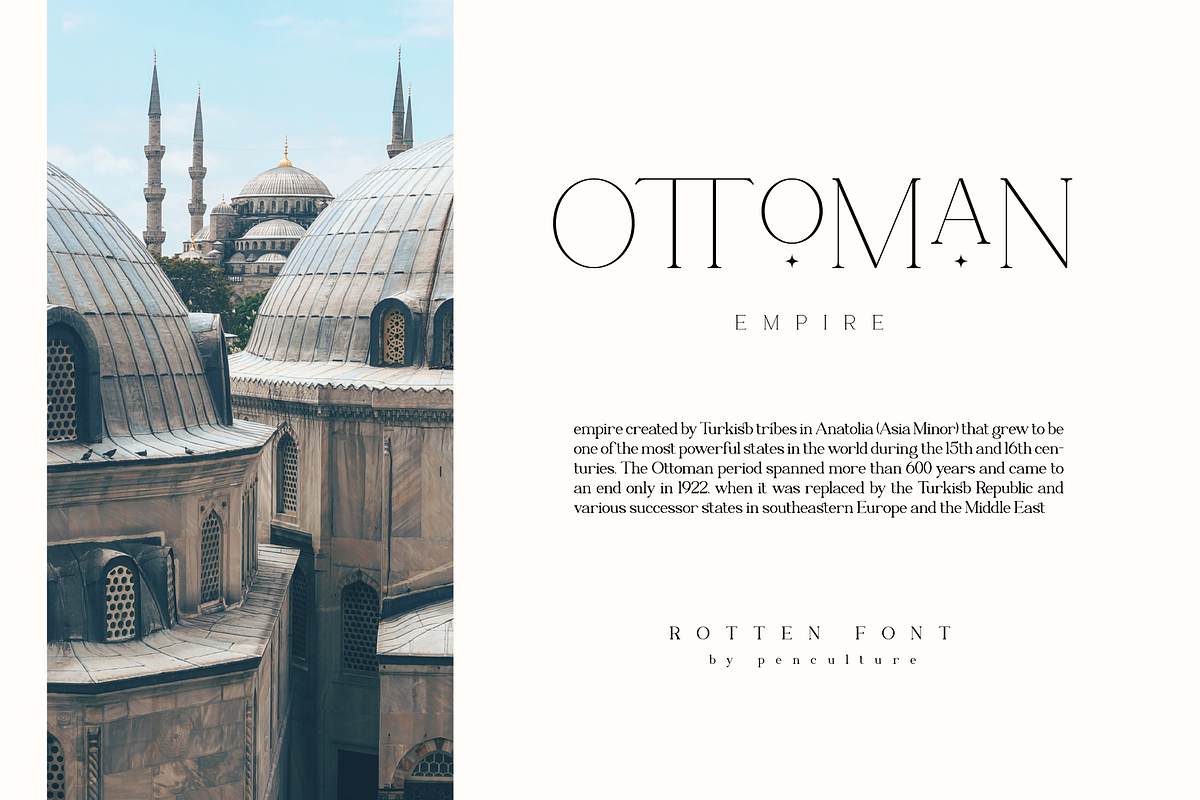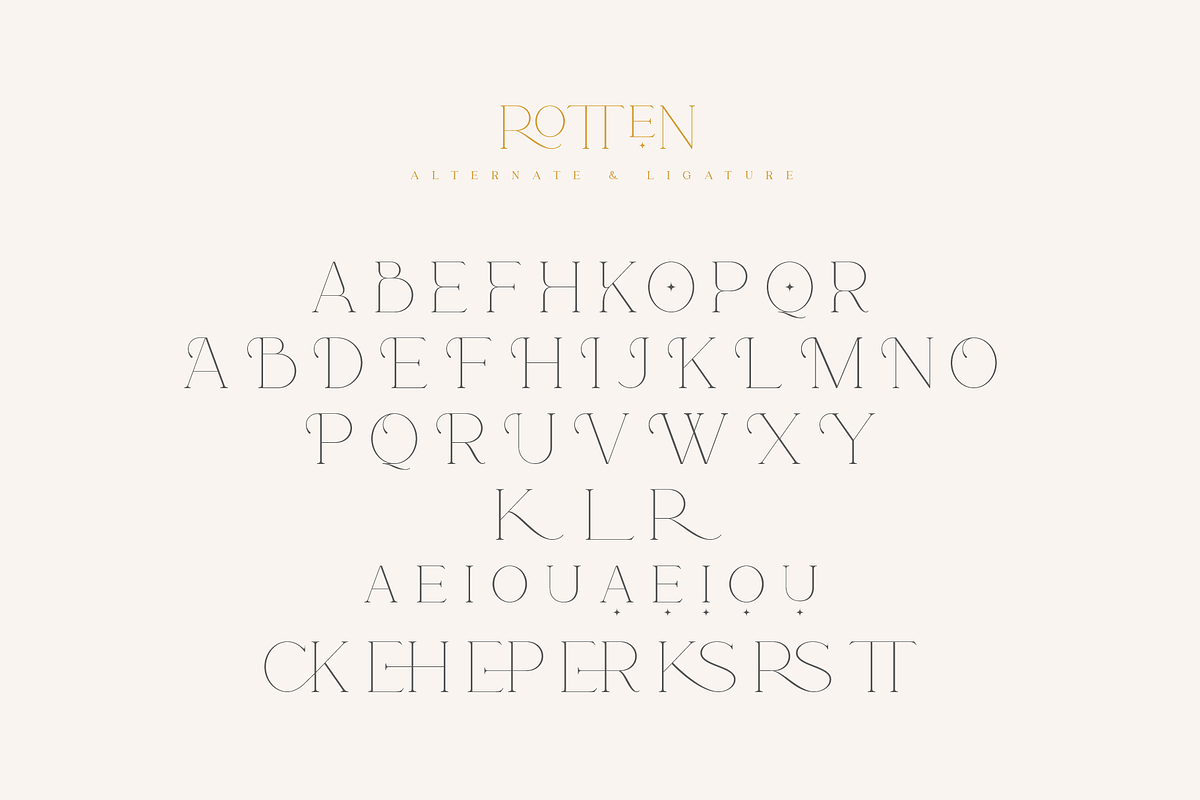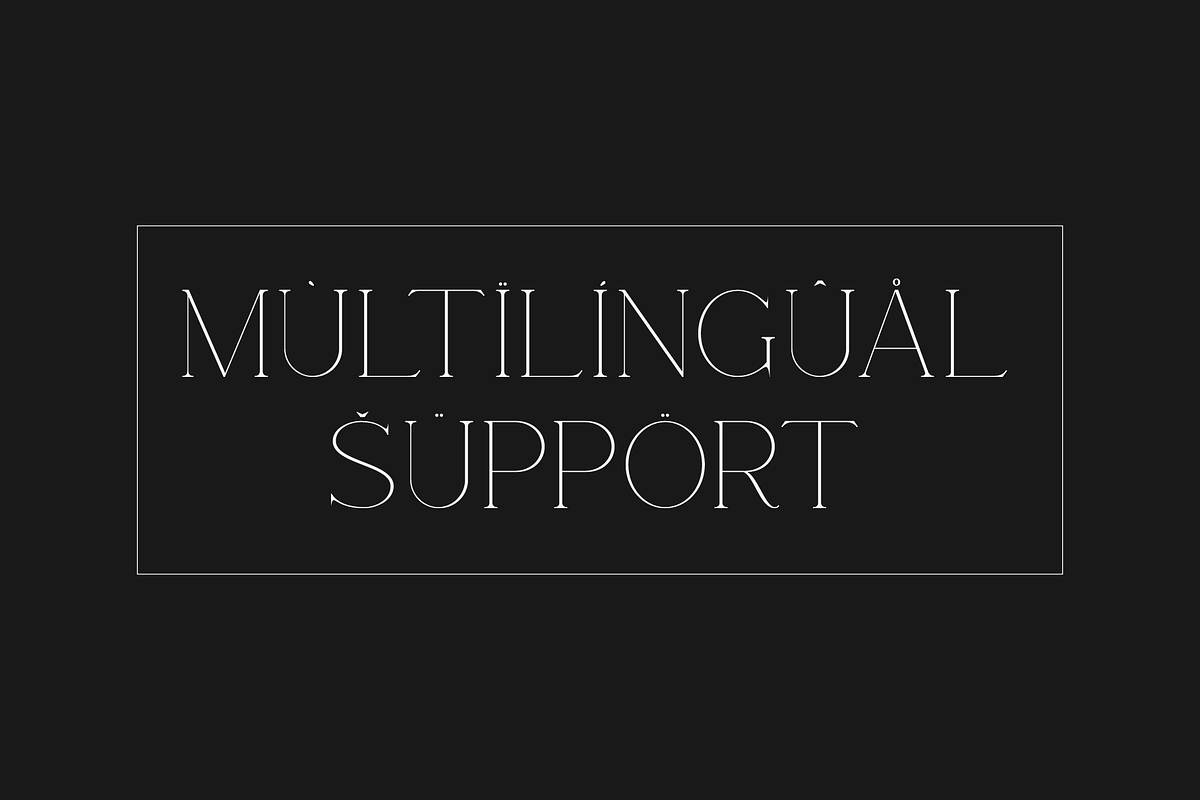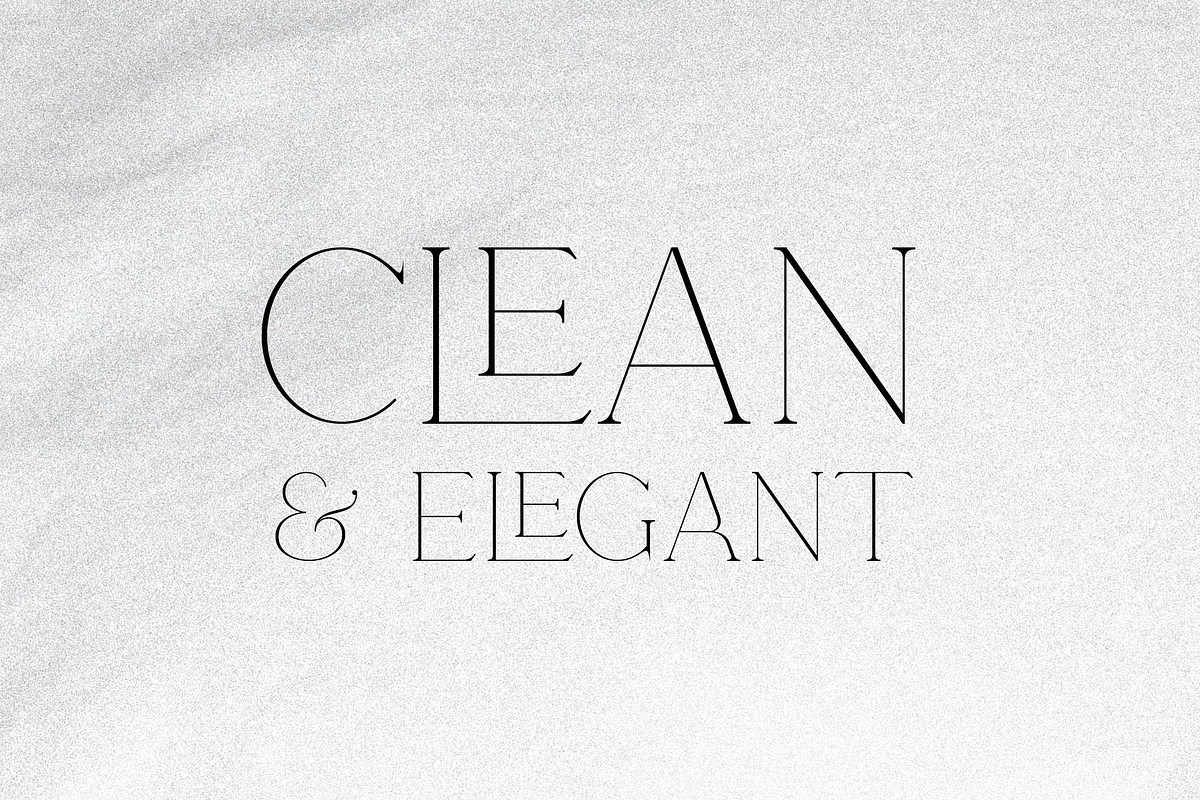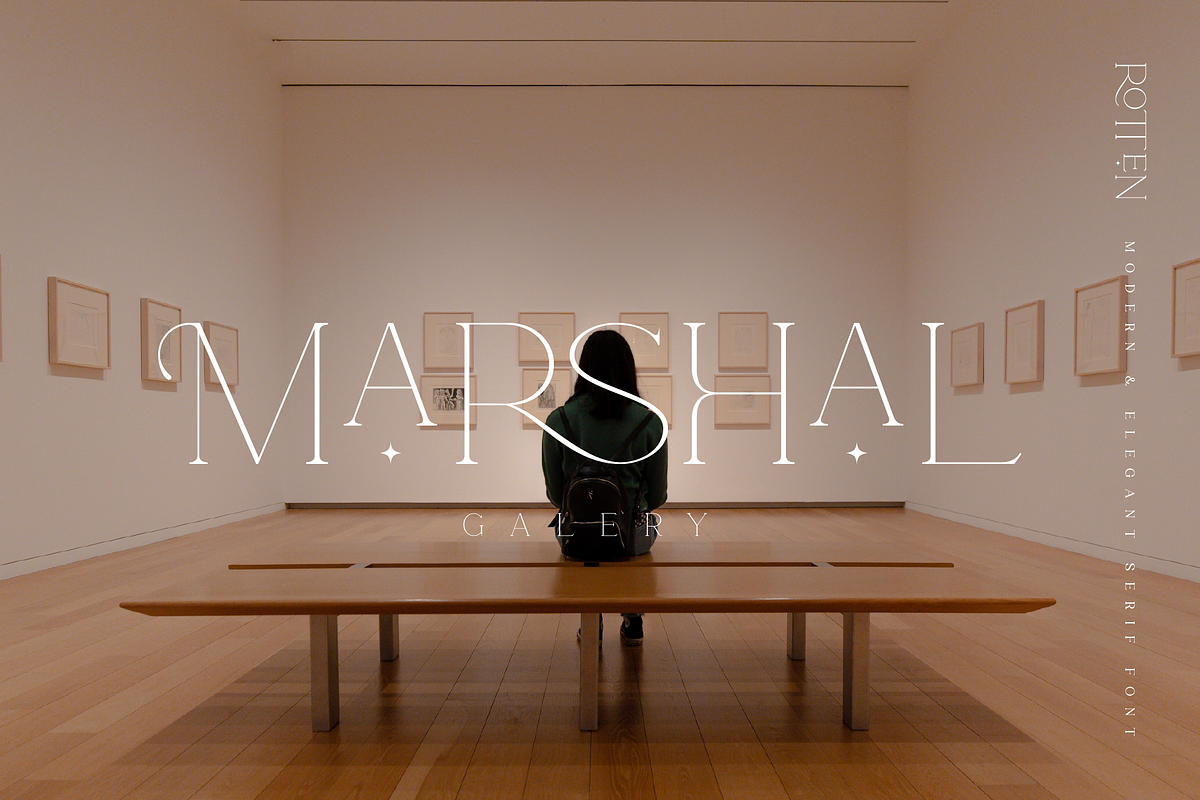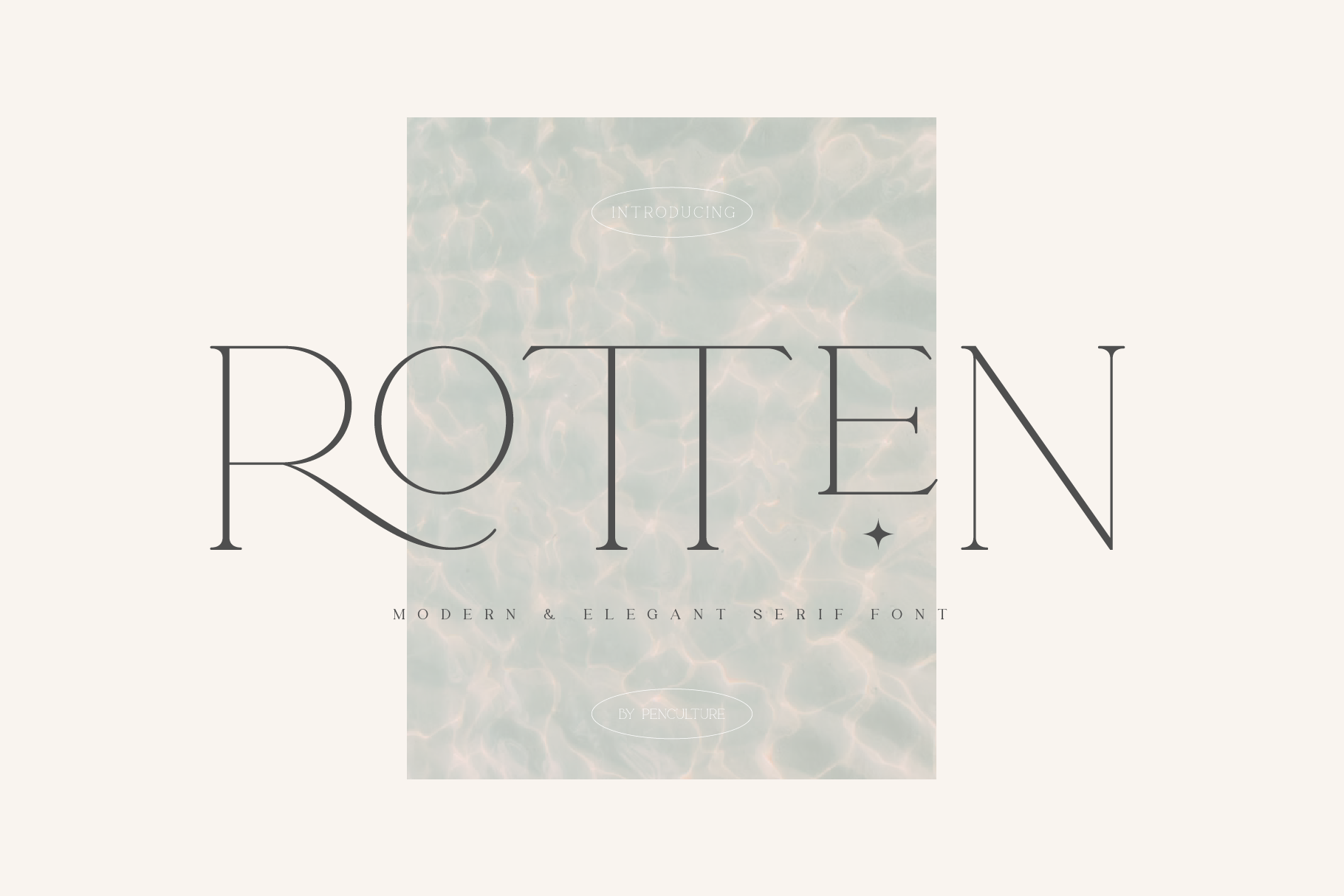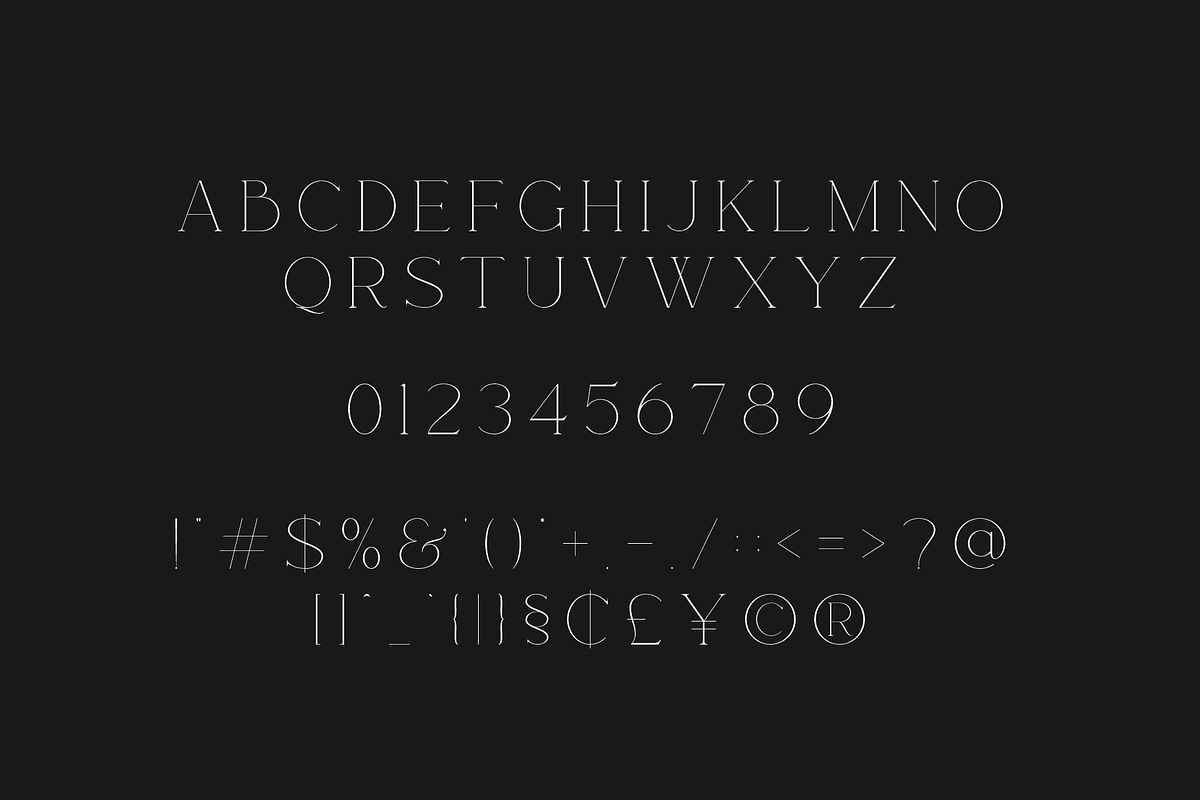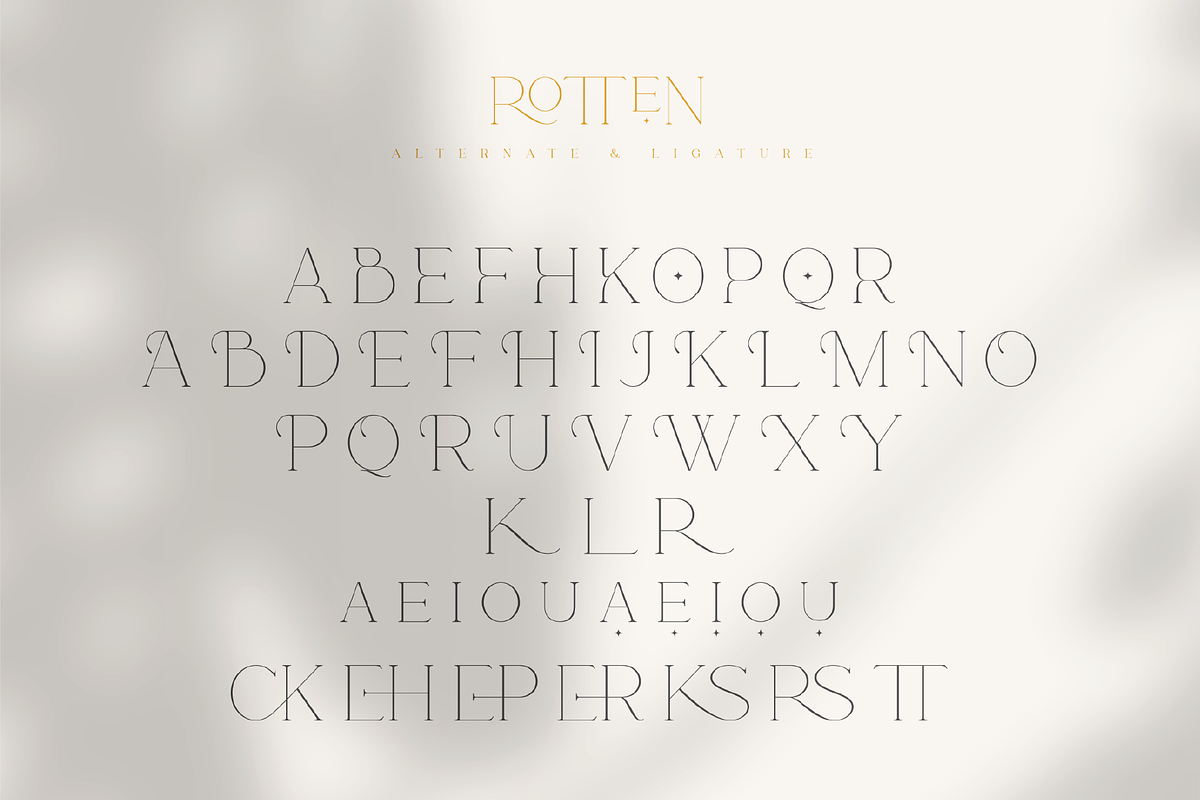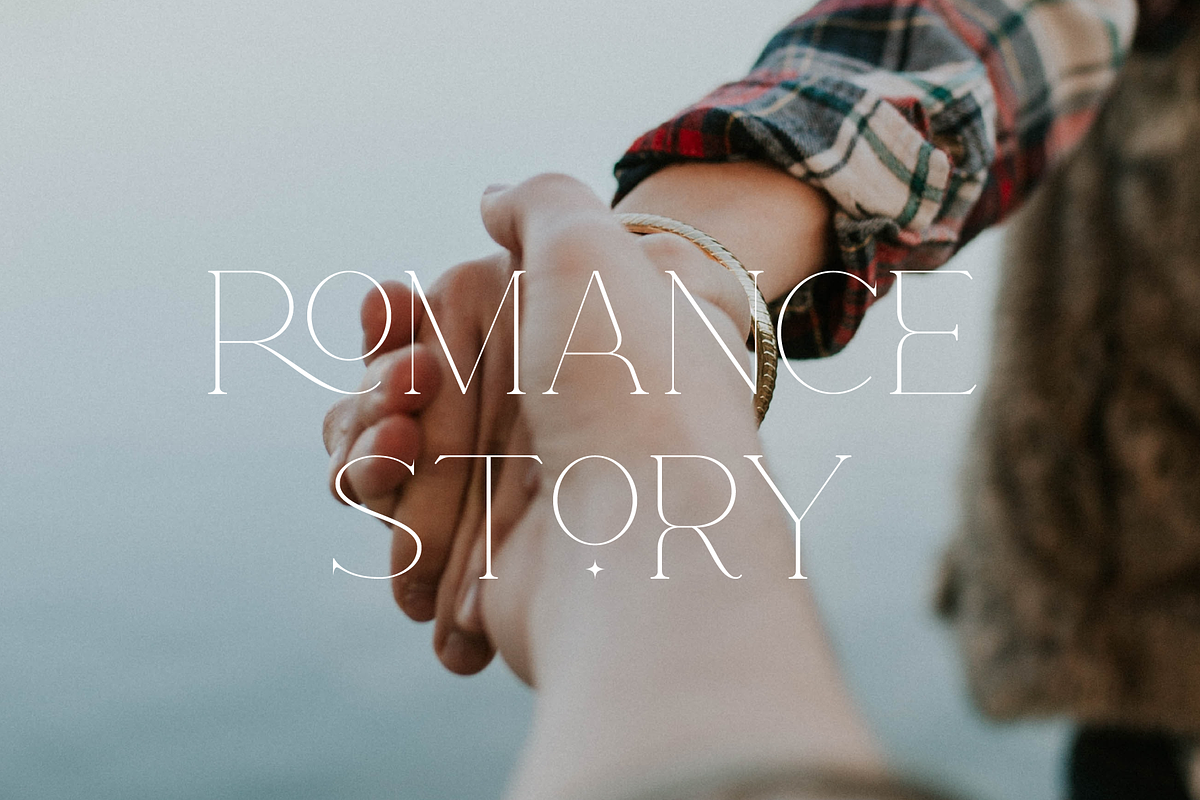
Rotten - Modern & Elegant Serif Font
Rotten is modern and elegant serif font. This font bring modern minimalist and elegant concept, this font will be very suitable for branding needs, logo design, posters and much more. This font is equipped with ligatures and beautiful alternates, you can mix and match them very easily in your projects.